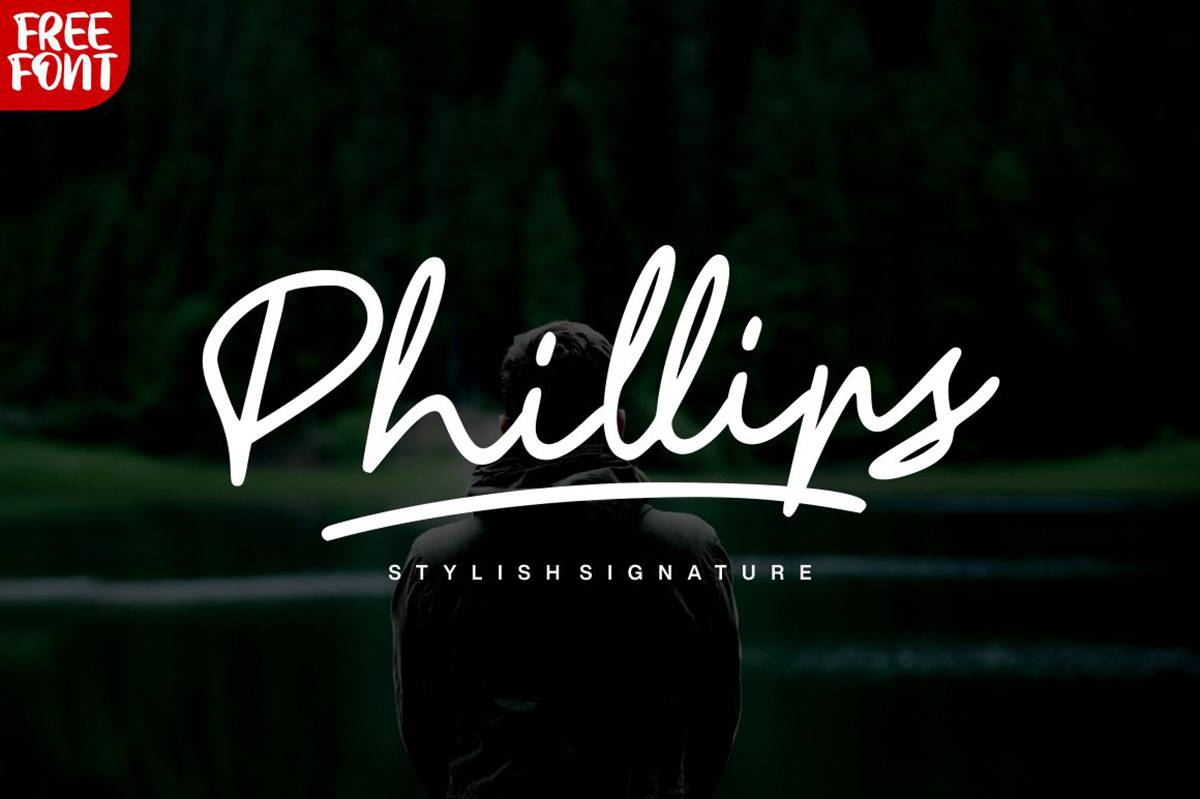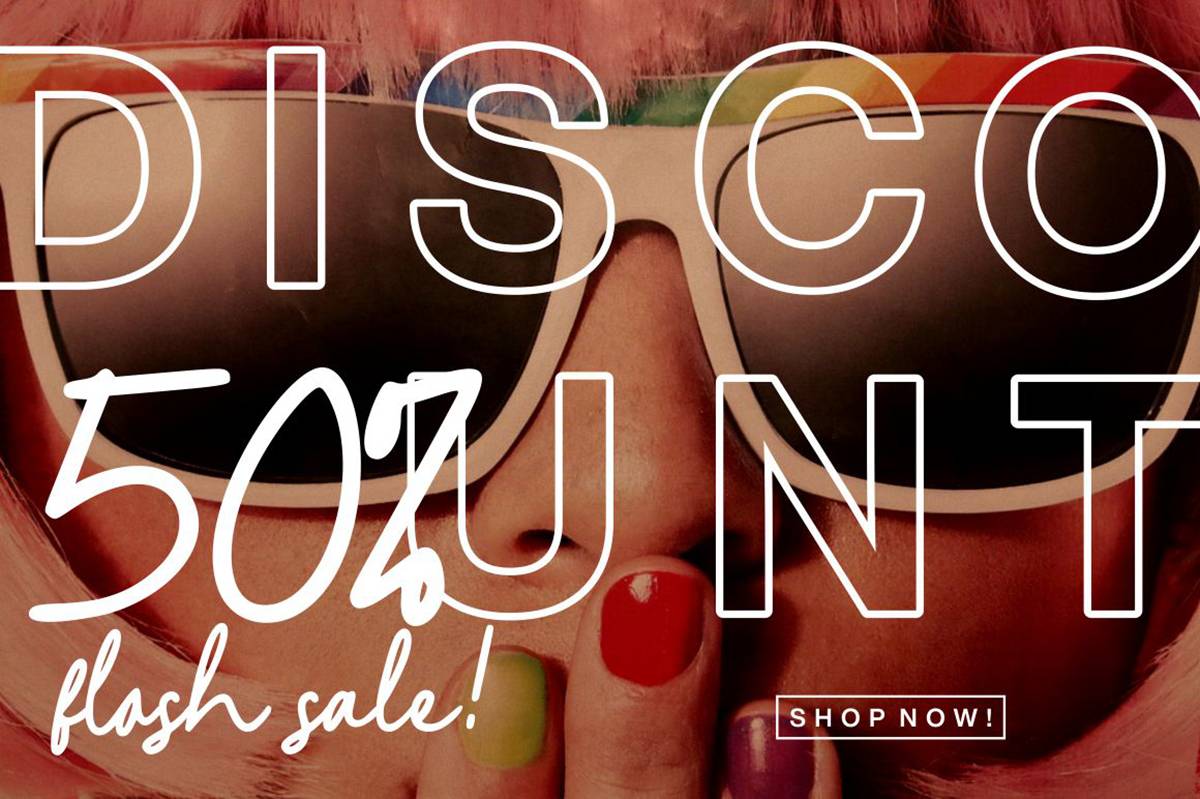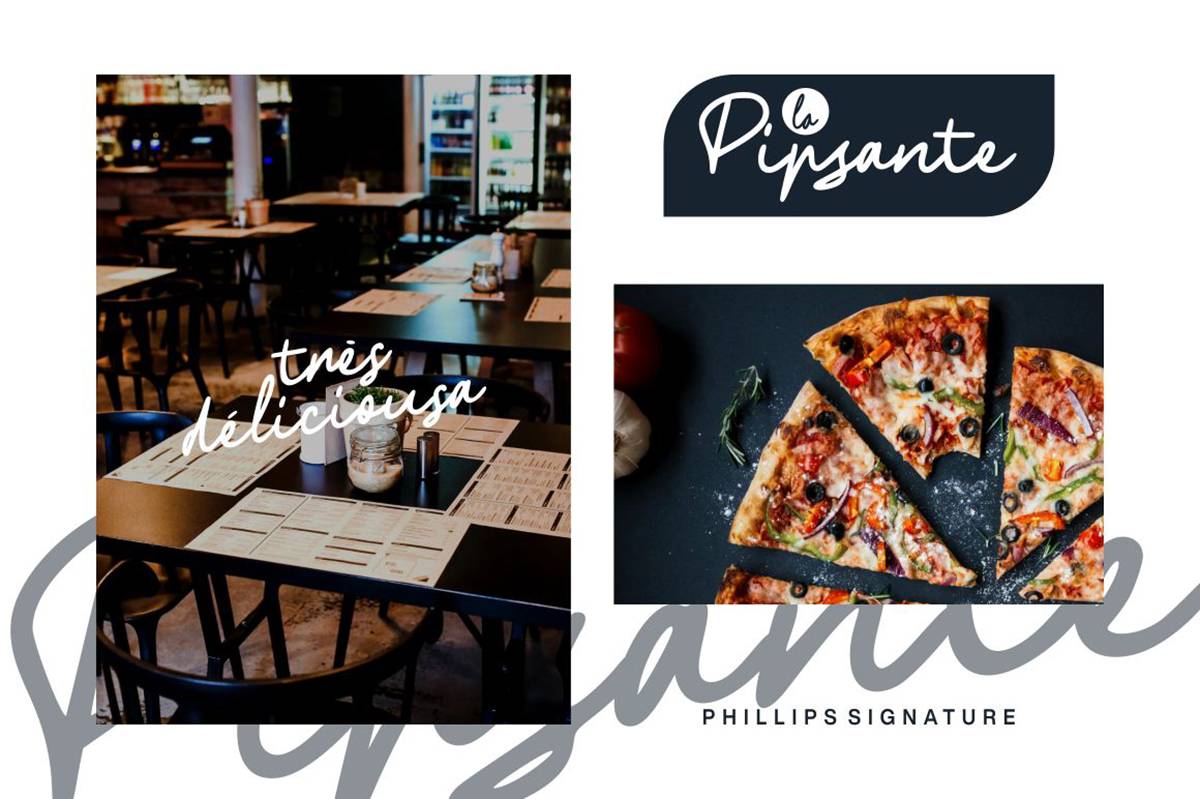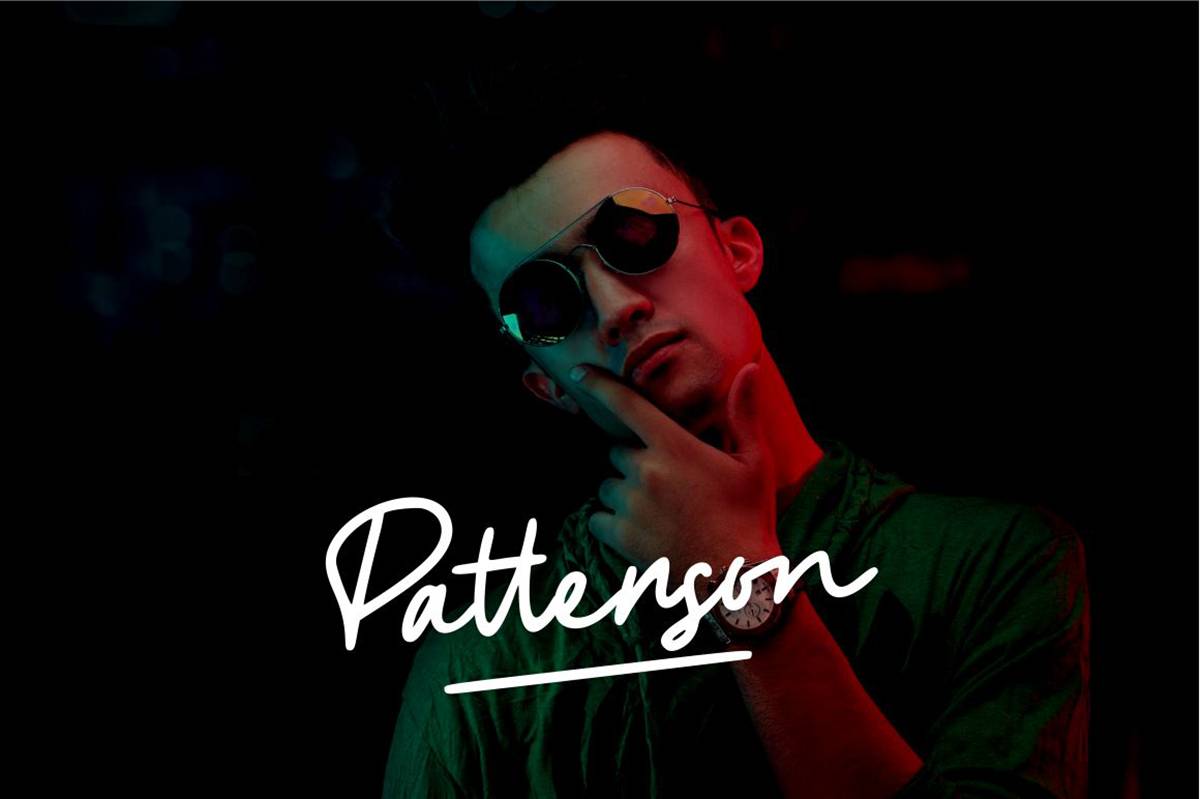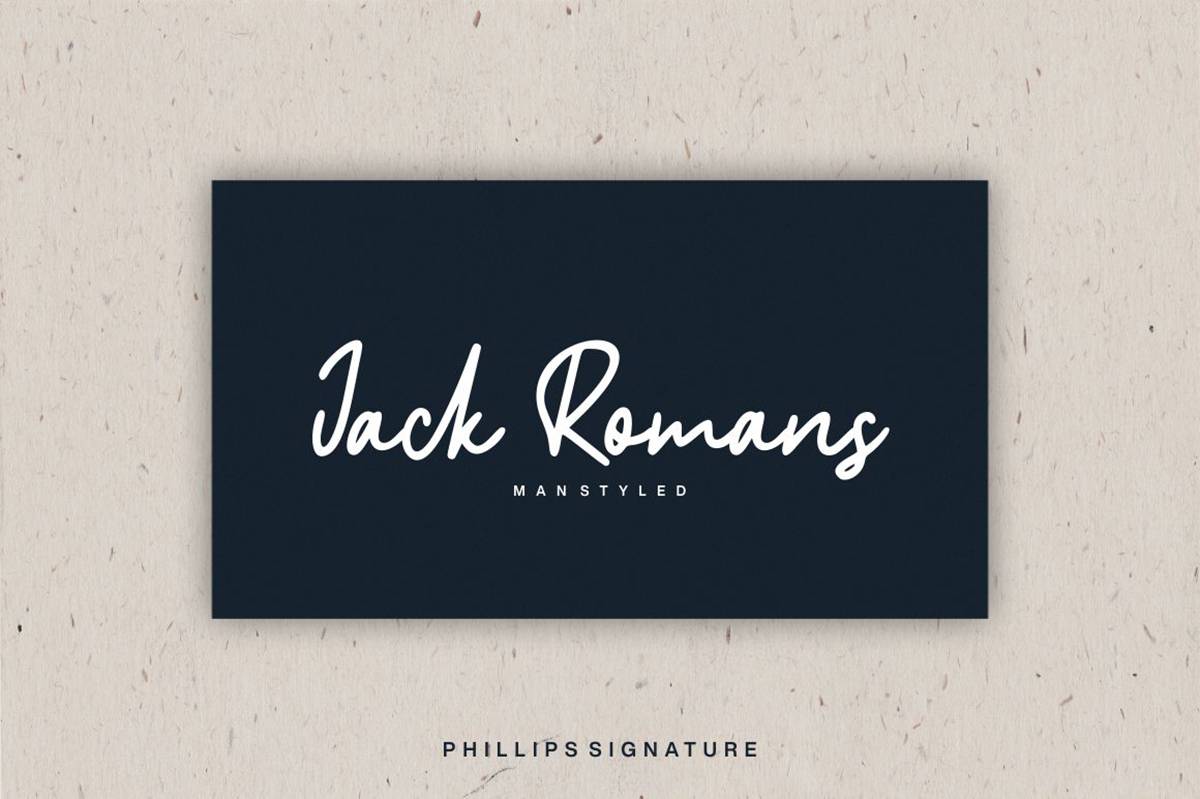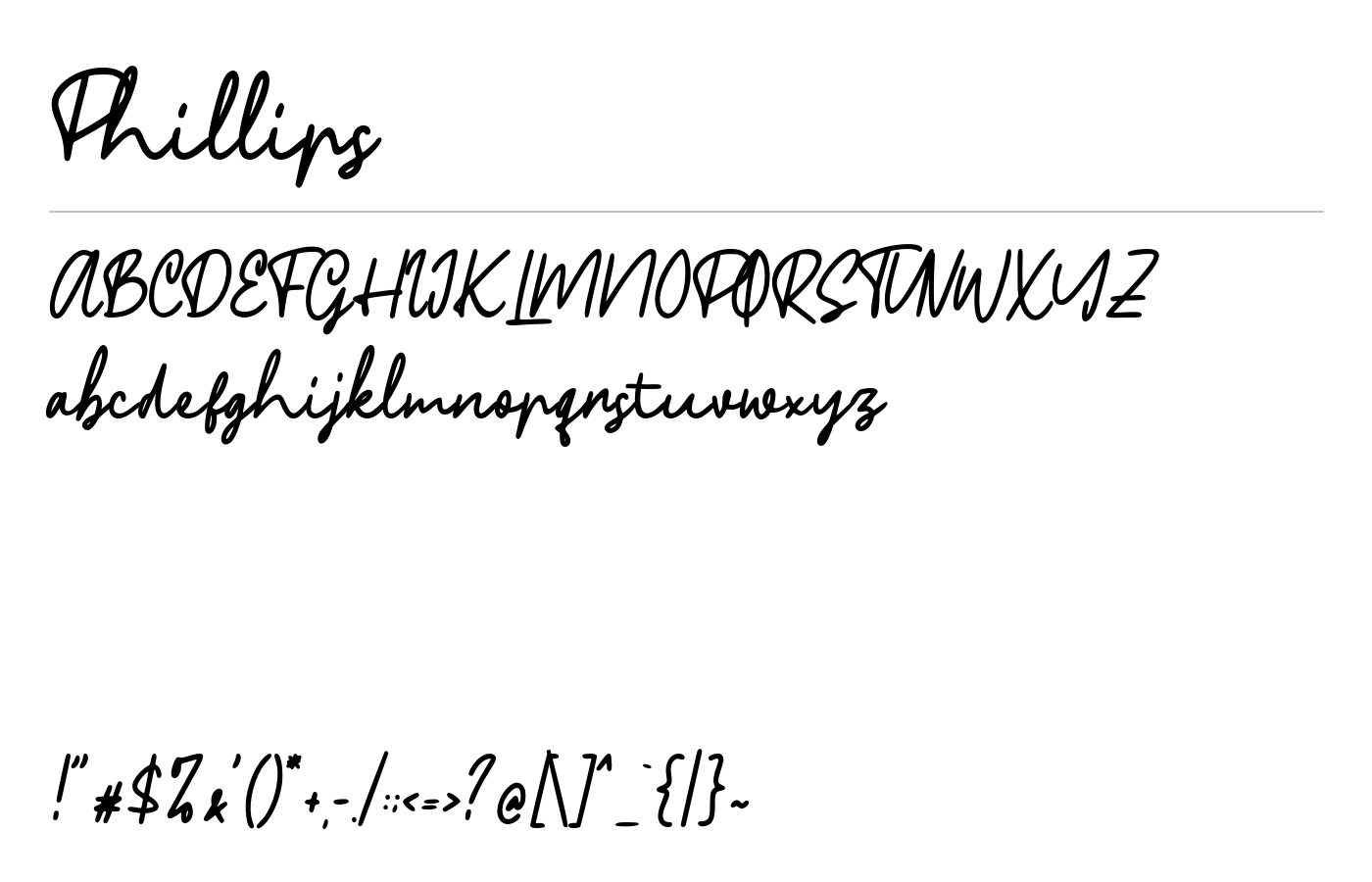
Phillips is a lively, handwritten script font that combines casual charm with clear legibility. Its smooth, slightly slanted strokes and natural flow make it perfect for adding a personal, friendly touch to branding, invitations, and social media graphics. This font works well in designs that want to feel approachable and creative without sacrificing readability.
Phillips Font
About Phillips Font
| Font family | Phillips Font |
| Release date | 2019-08-07 |
| Designer | Good Java Studio |